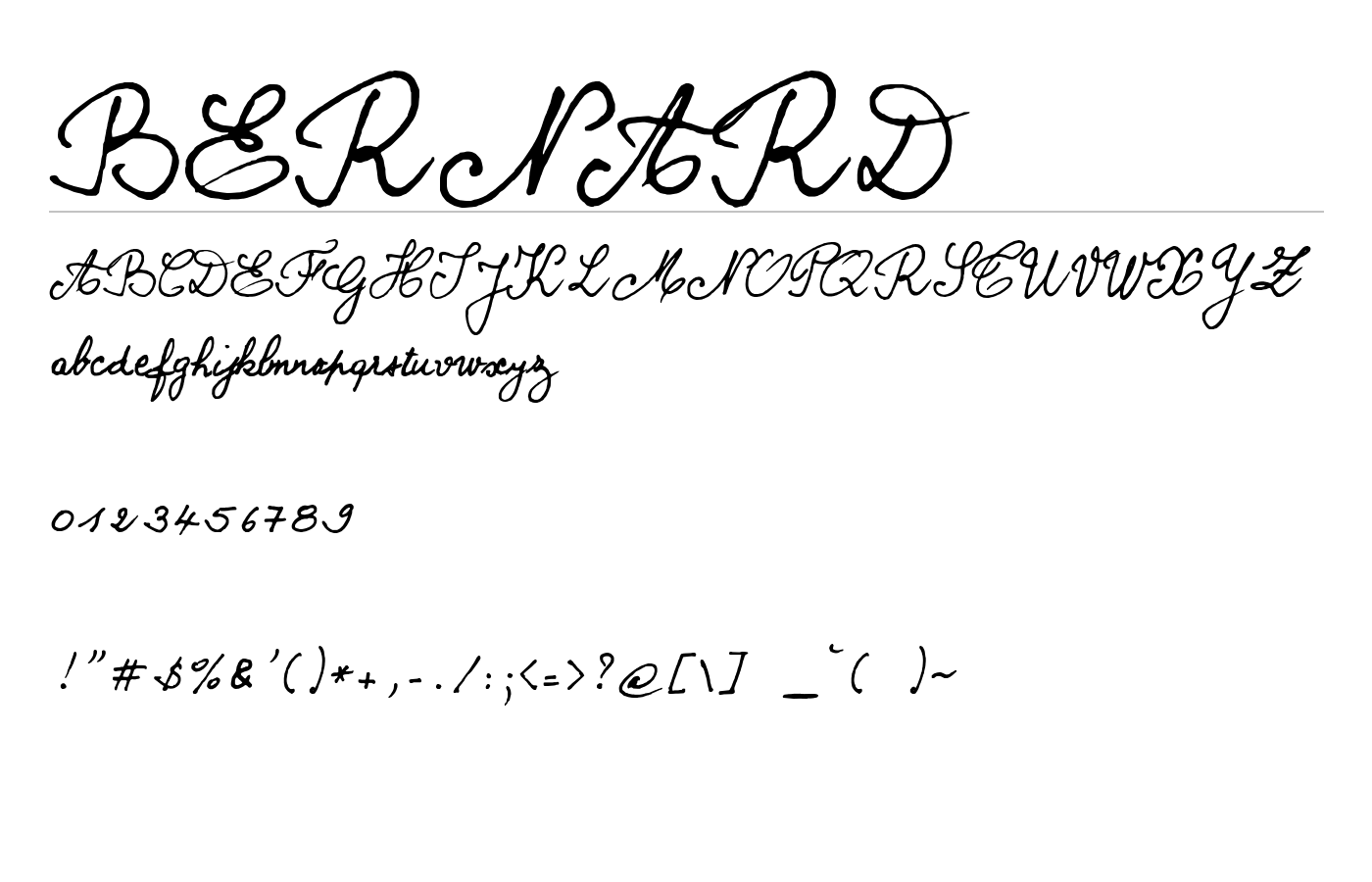
Bernard is an elegant script font with a delicate, hand-drawn feel characterized by its flowing, cursive strokes and graceful, slightly uneven lines. Its thin weight and smoothly connected letters create a refined and personal touch, making it ideal for invitations, branding, and design projects that seek a sophisticated yet approachable handwritten style. This font works best in display uses where its charming, vintage-inspired personality can shine.
BERNARD Font